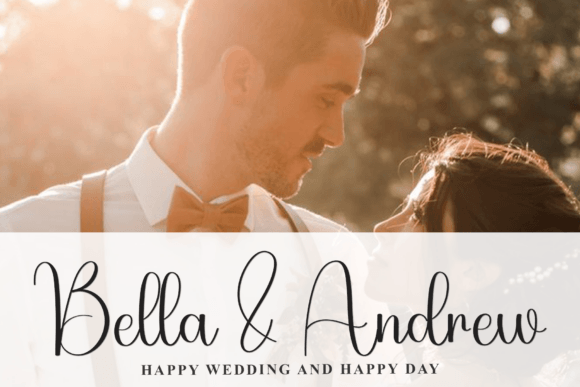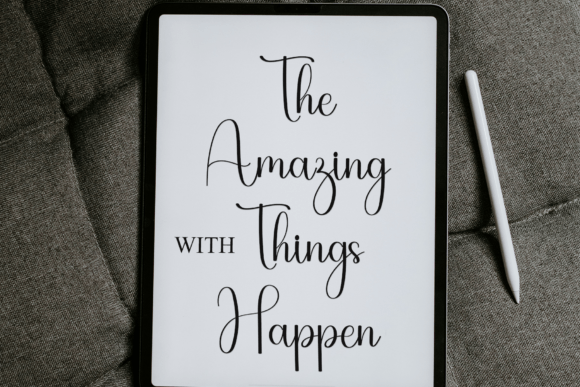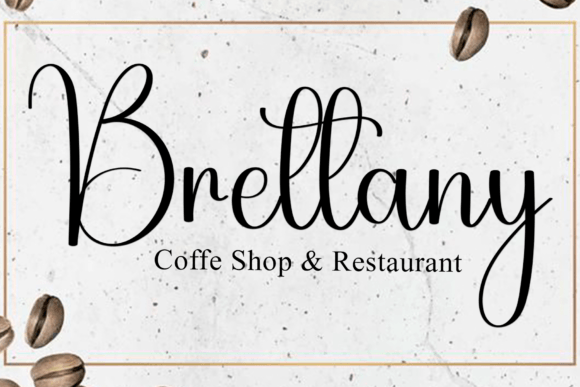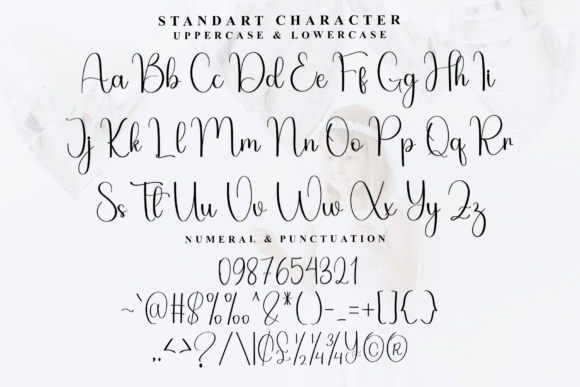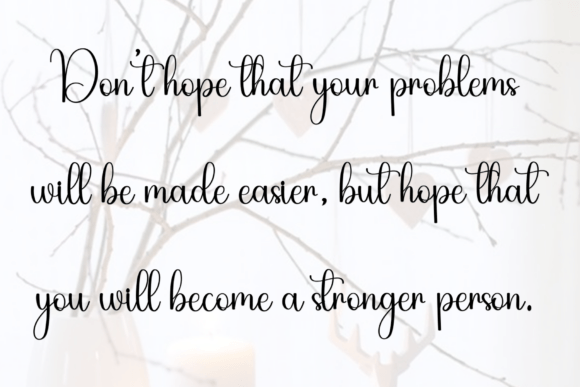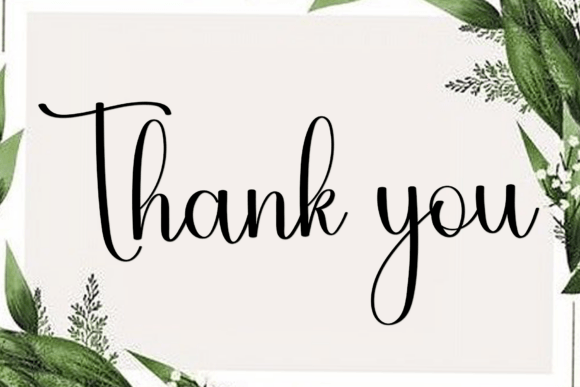
The Designer’s Delight: Bubble Beautiful Font
I’ll never forget the moment I stumbled upon the perfect font for a client’s wedding invitation project. I had been searching for hours, trying out different fonts, but none seemed to fit the elegant and whimsical vibe I was going for. That’s when I discovered Bubble Beautiful, a delicate and elegant handwritten font that stole my heart. Its distinct and well-balanced letters made it a masterpiece, and I knew I had found the one. In this article, I’ll share my love for Bubble Beautiful, its features, and how to make the most of it in your designs.
Bubble Beautiful is a versatile font that has won my heart, and here’s why:
• ✨ Elegant and delicate handwritten style
• ✅ Well-balanced letters for easy readability
• 💫 Versatile and suitable for various design projects
• 🎉 Beautifully crafted to add a touch of sophistication
However, no font is perfect, and Bubble Beautiful has a few quirks:
• 🤔 Limited availability of stylistic alternates
• ⚠️ May not be suitable for very large or very small font sizes
The Story Behind Bubble Beautiful
Bubble Beautiful was designed by a talented typographer who wanted to create a font that would evoke a sense of elegance and whimsy. Inspired by the beauty of handwritten scripts, the designer crafted each letter with precision and care. The result is a font that’s both delicate and sophisticated, perfect for a variety of design projects.
What is the best use for Bubble Beautiful? Bubble Beautiful is versatile and can be used for a variety of design projects, including wedding invitations, branding, and packaging.
Is Bubble Beautiful suitable for body text? While Bubble Beautiful is beautiful, it’s best used for headings and titles. For body text, a clearer font may be more suitable.